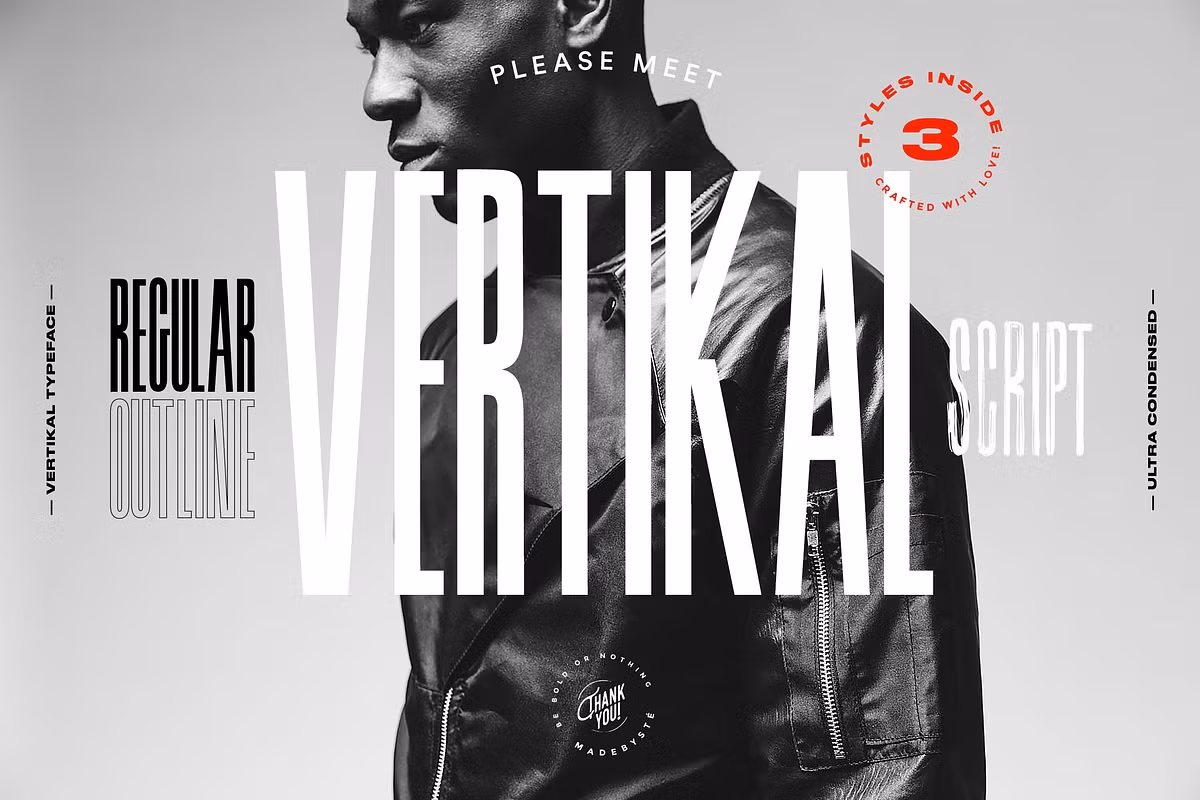
VERTIKAL — 3 Condensed Fonts Free Download is a striking set of three condensed typefaces designed to provide a clean, bold look while saving space. These fonts are perfect for headlines, posters, logos, and any design project where you need to make a big impact in a small area.
The VERTIKAL set offers different weights, allowing you to experiment with both subtle and strong contrasts in your designs. Whether you're working on a modern brand identity, editorial layout, or promotional material, these condensed fonts deliver maximum visual appeal with minimal space.
Make a bold statement with the sleek and powerful style of VERTIKAL!